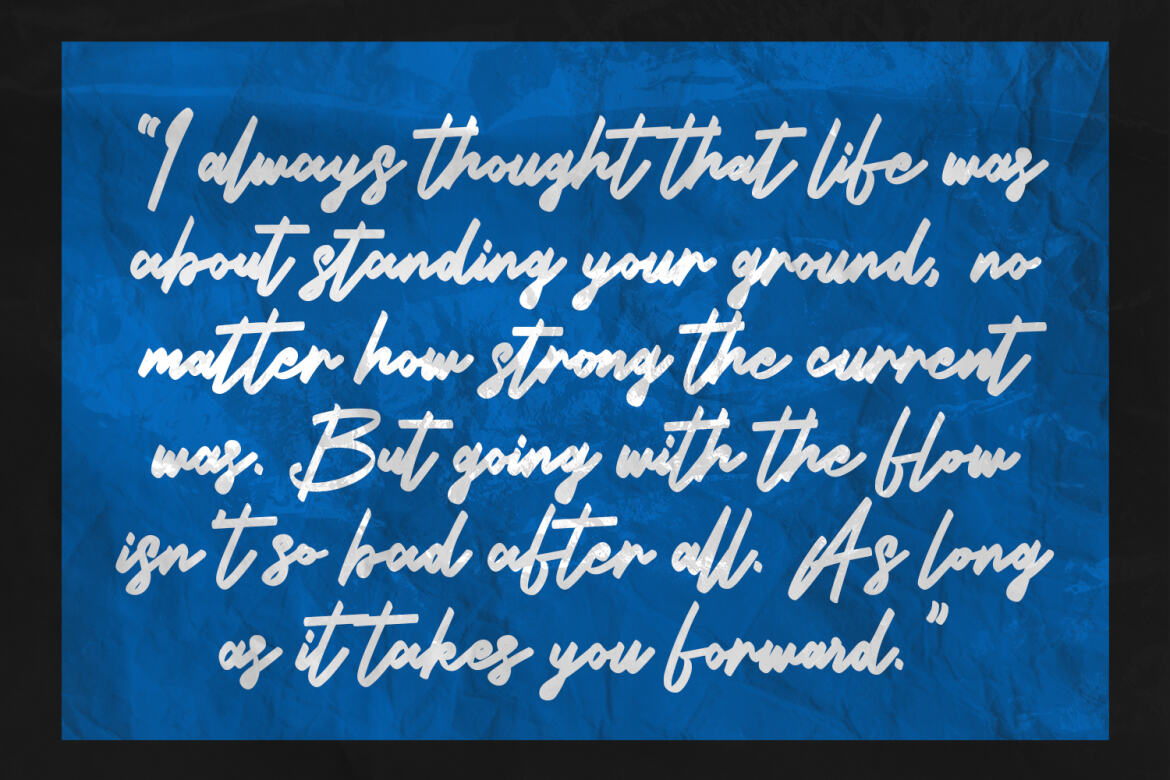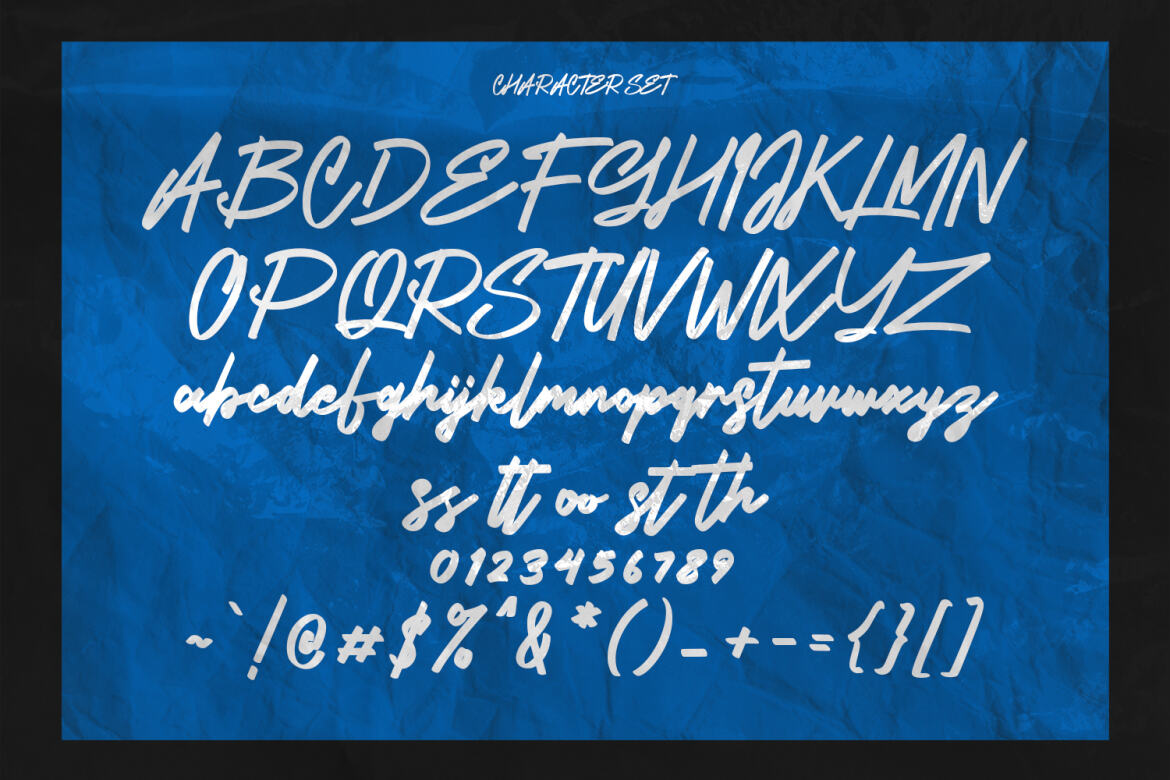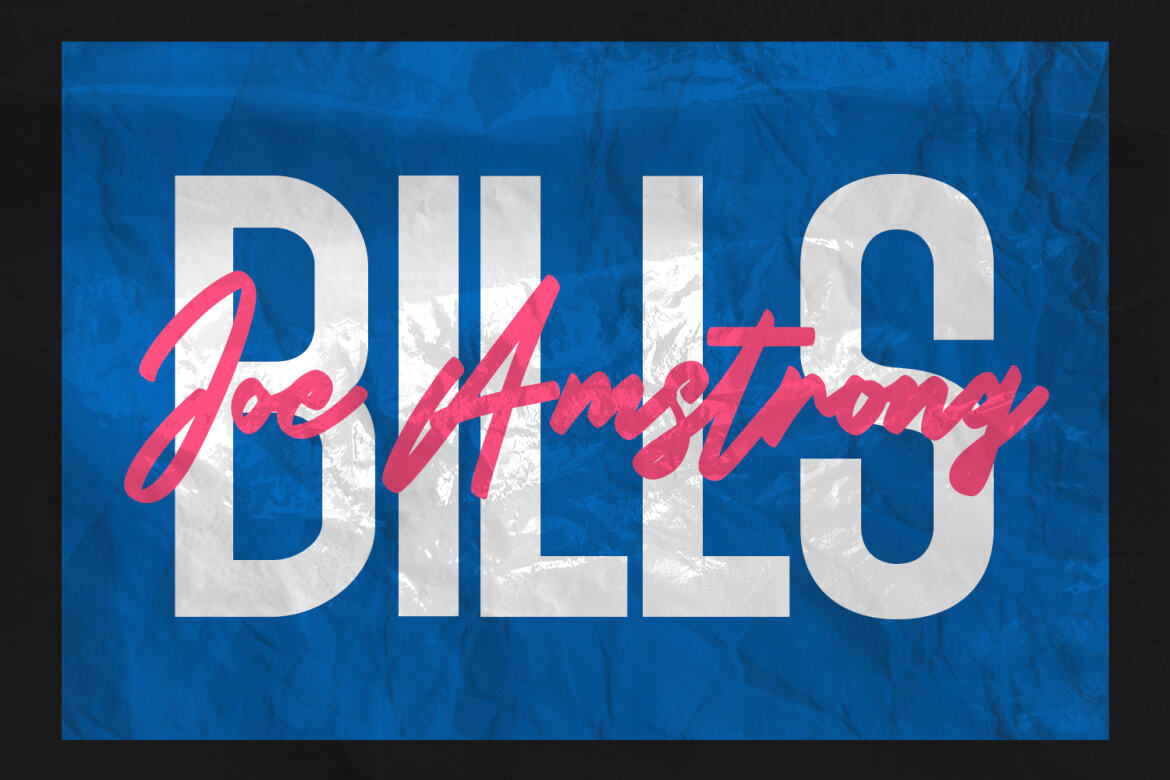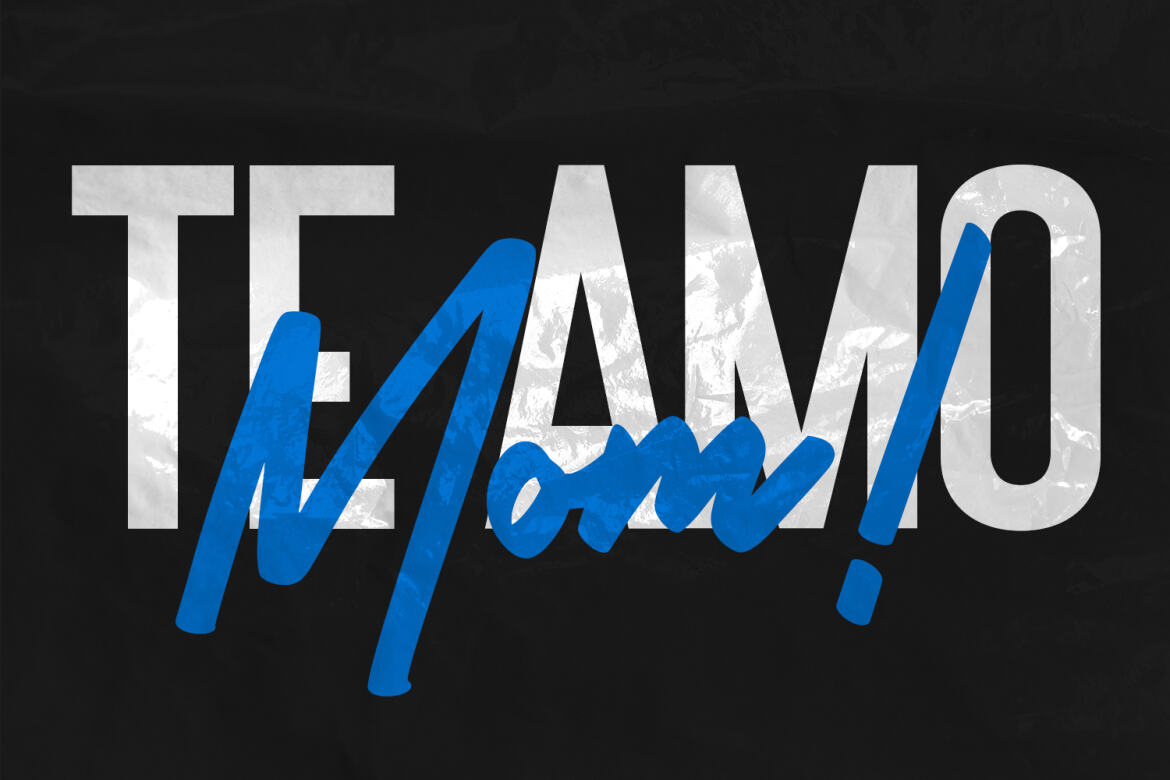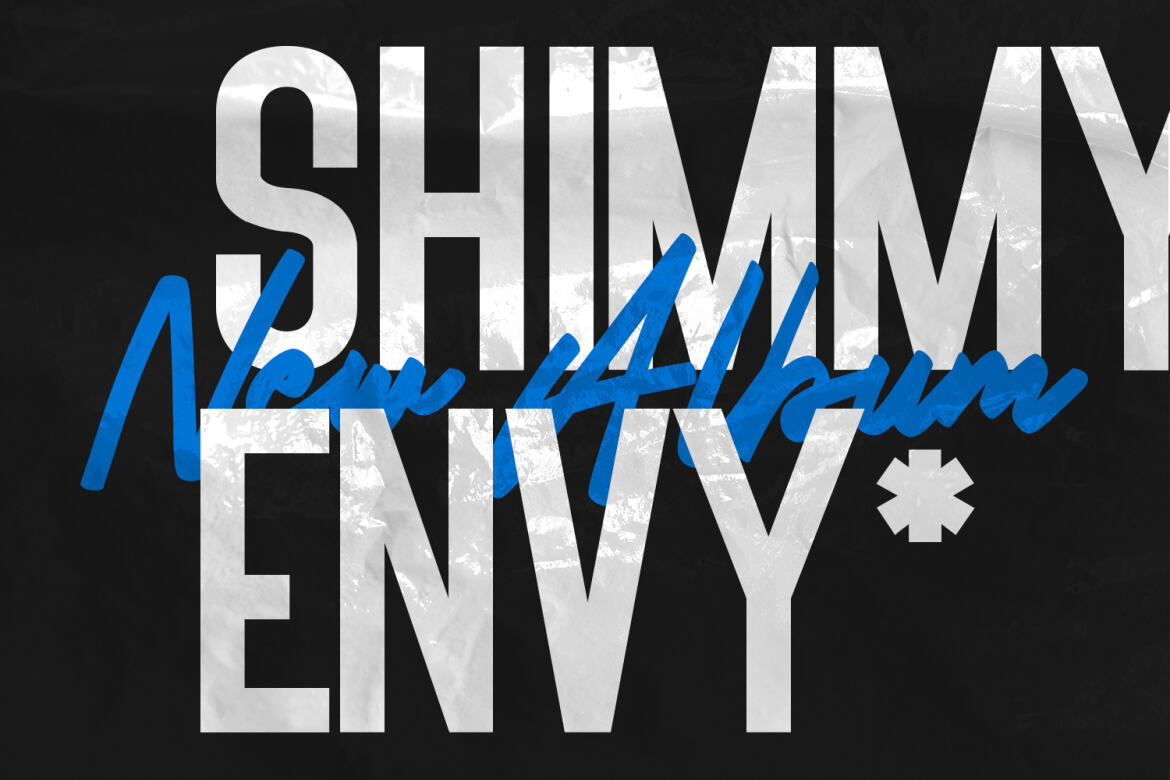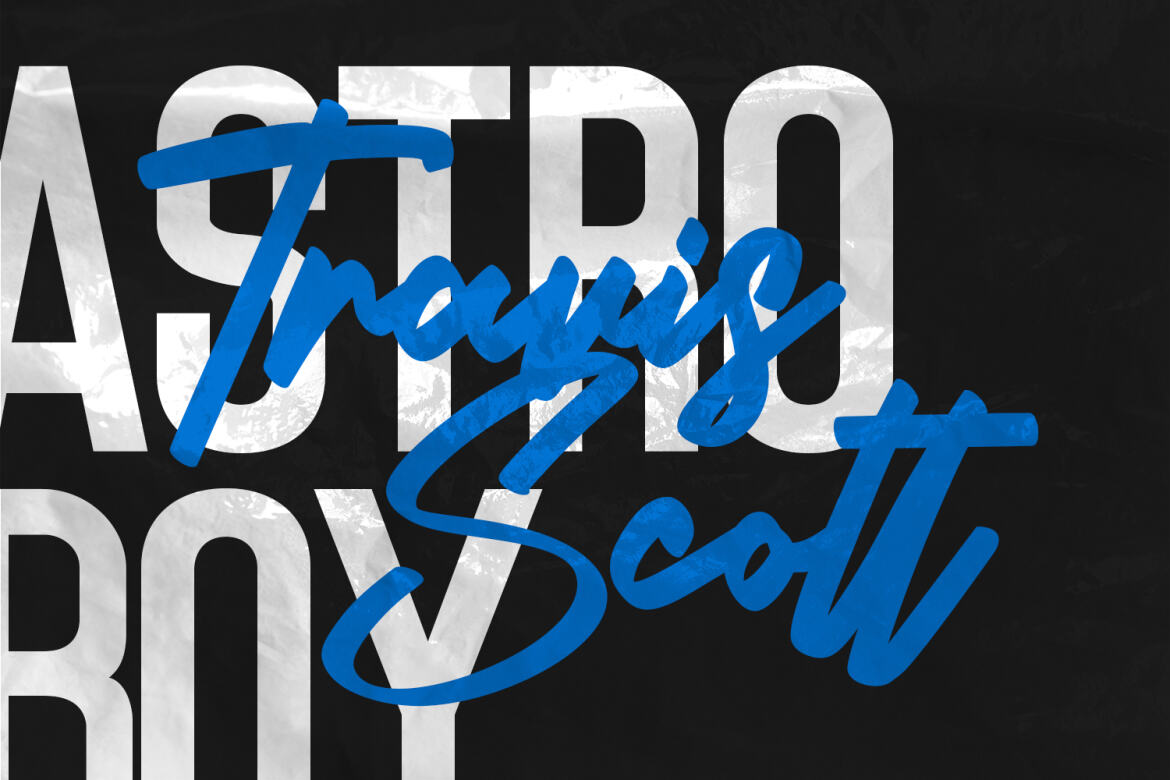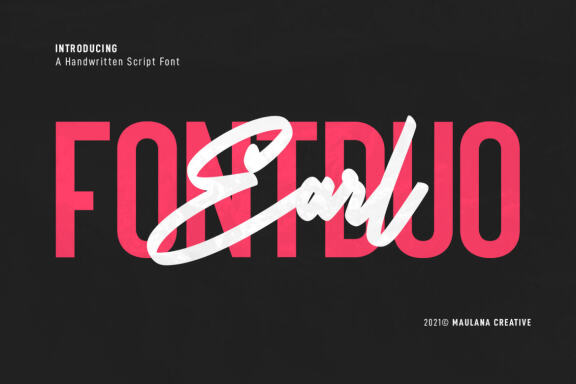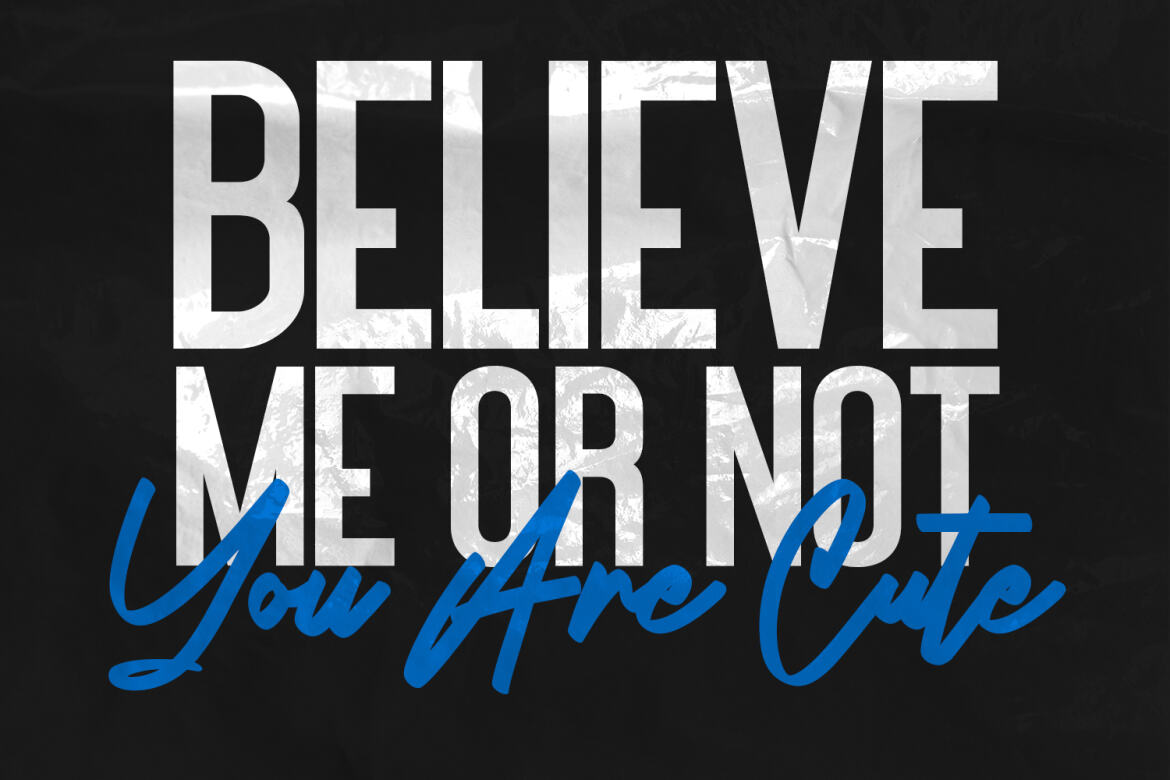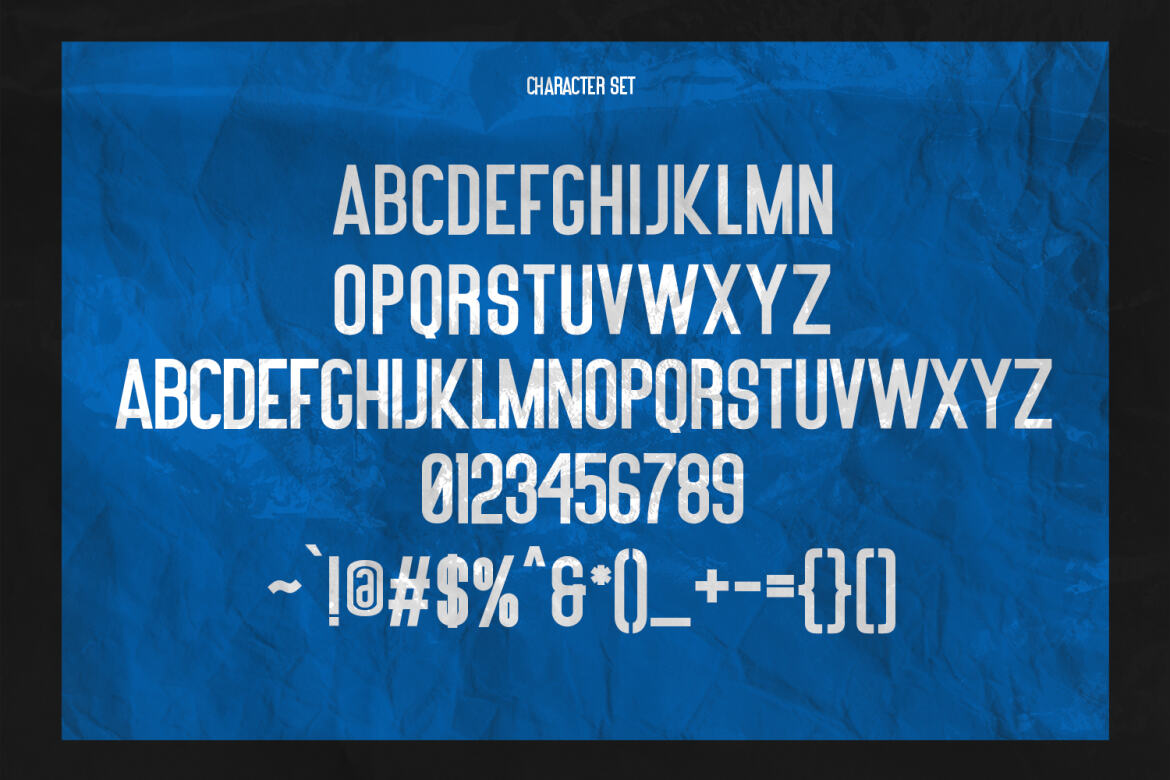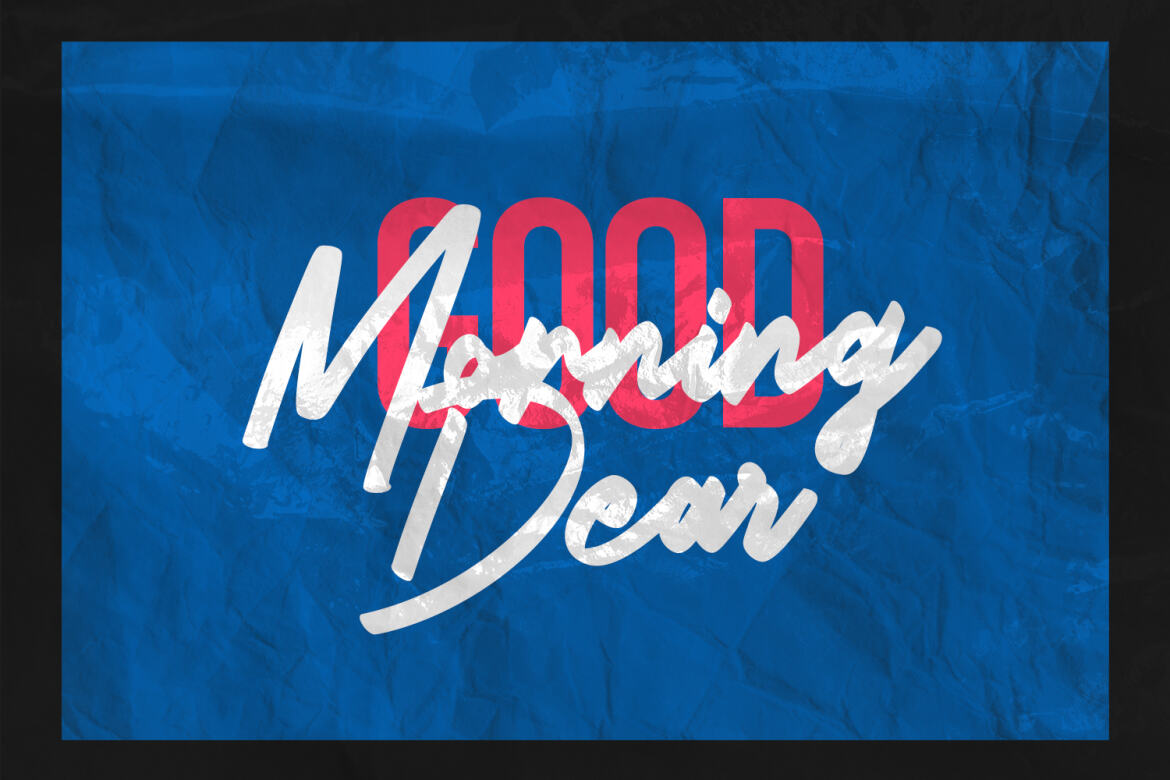
Earl Handwritten Script FREE Font Duo
Earl is a handwritten script and Bold Sans serif font. With bold felt tip stroke, fun character with a bit of ligatures. To give you an extra creative work. Earl font support multilingual more than 100+ language. This font is good for logo design, Social media, Movie Titles, Books Titles, a short text even a long text letter and good for your secondary text font with sans or serif. Make a stunning work with Earl font.